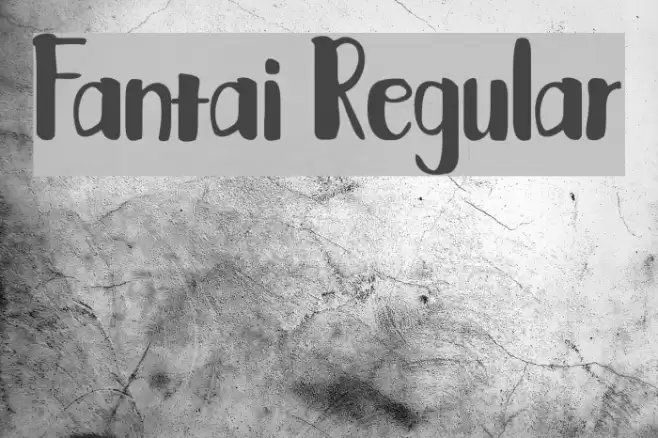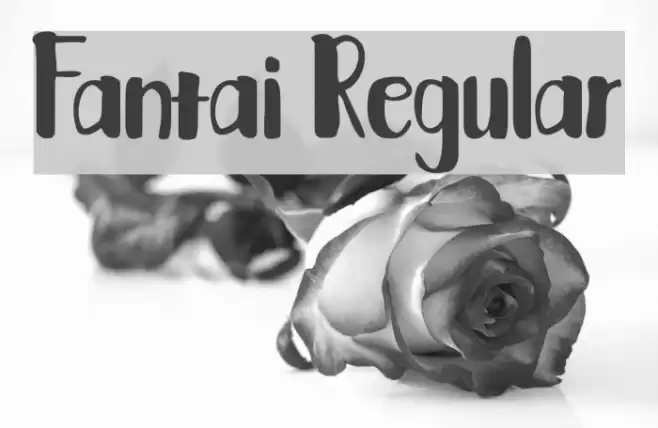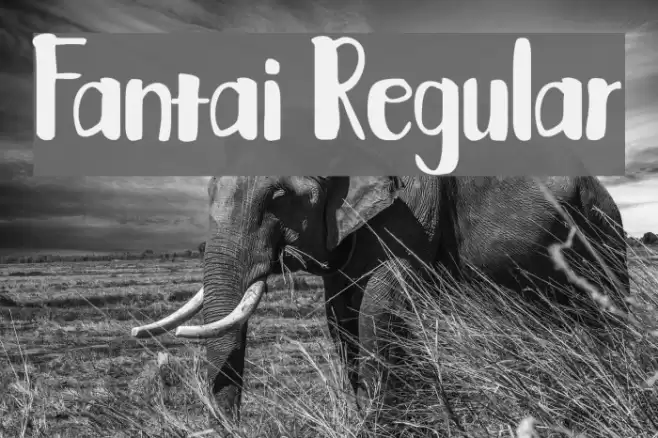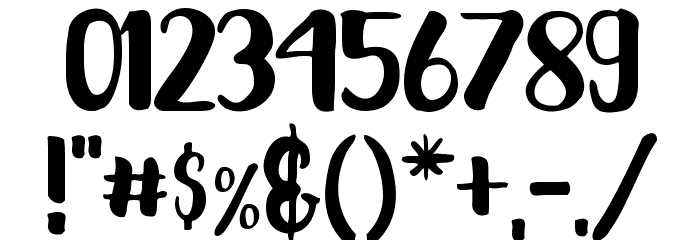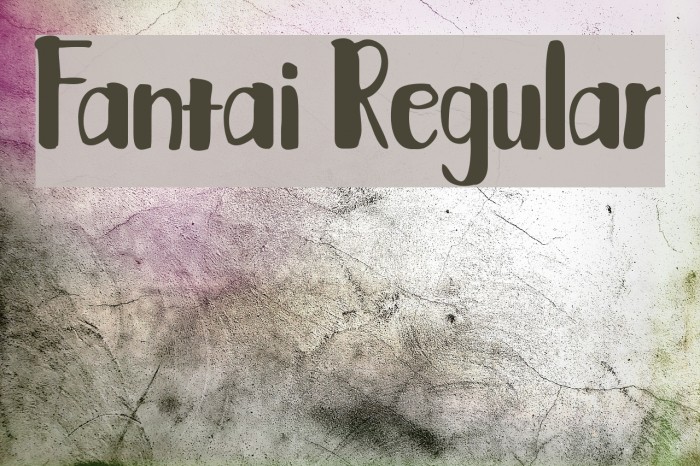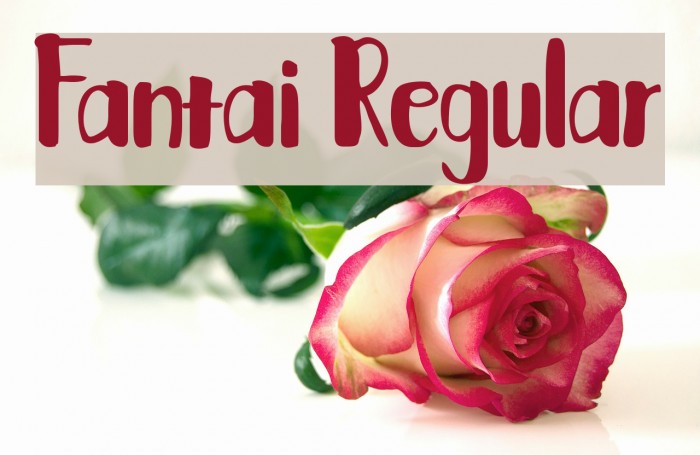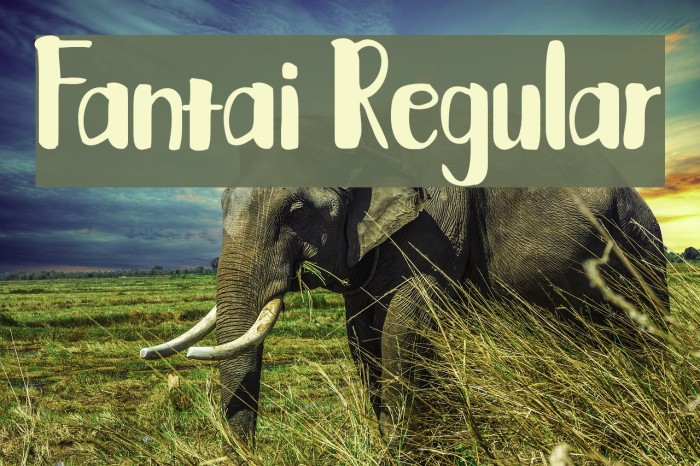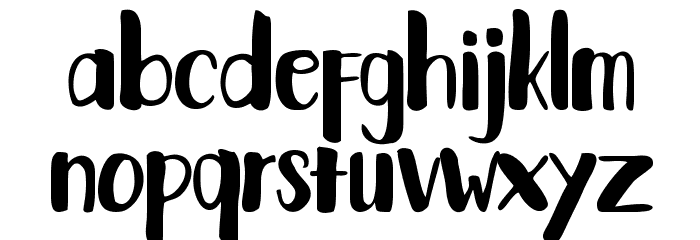
Fantai Regular Font
Fantai Regular Description
This font features a playful and bold style with a hand-drawn appearance. The letters are rounded and slightly irregular, giving it a whimsical and friendly feel. The uppercase and lowercase letters maintain a consistent style, with the uppercase being slightly more elongated. Numbers and special characters follow the same playful design, making the font versatile for various creative projects. The strokes are thick and uniform, contributing to its bold presence.
A playful, bold, and hand-drawn style font with rounded, irregular characters from Uncategorized fonts.